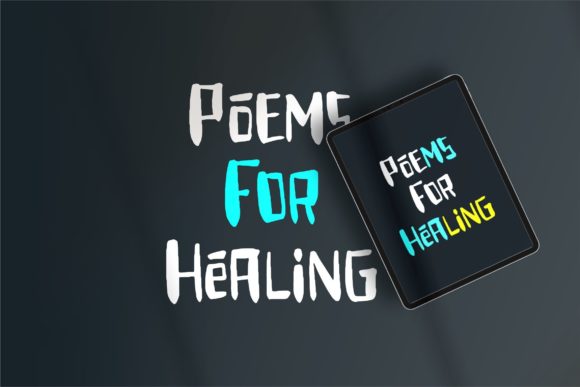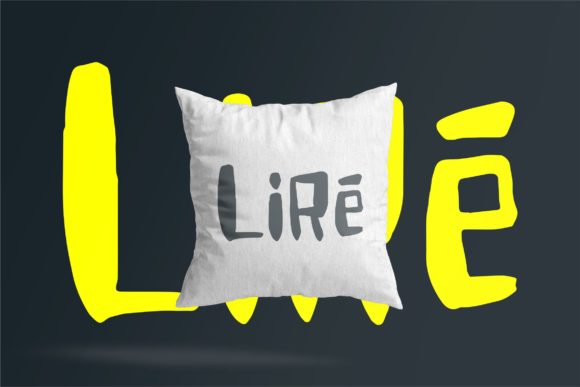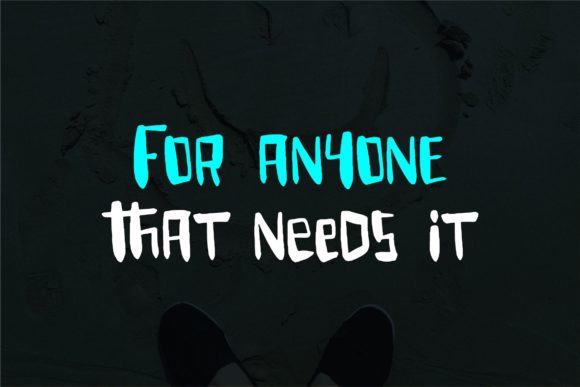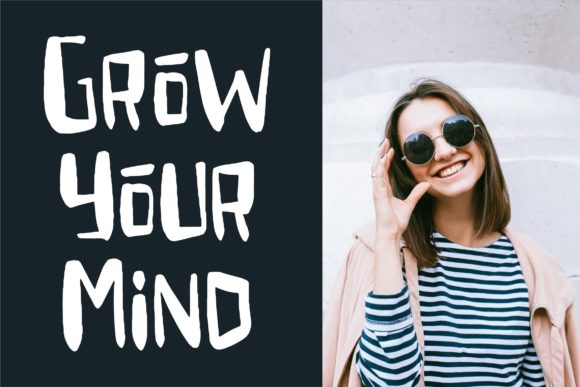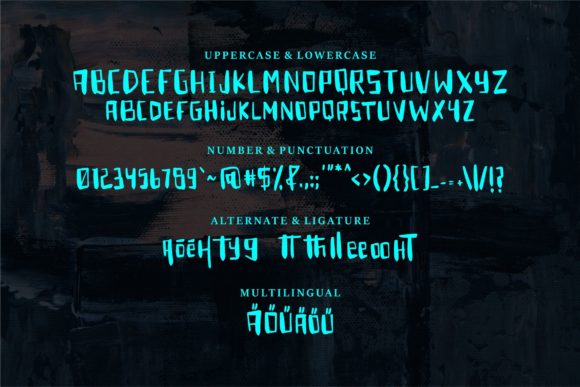
Introduction to Kamber Font
Kamber is a cool display font with a calligraphic style.
It looks beautiful on invitations like greeting cards, branding materials, business cards, quotes, posters, and more .
Kamber Font offers exceptional quality and versatility, making it a valuable addition to your design toolkit. Whether you’re creating for personal projects or commercial use, Kamber Font delivers professional results.